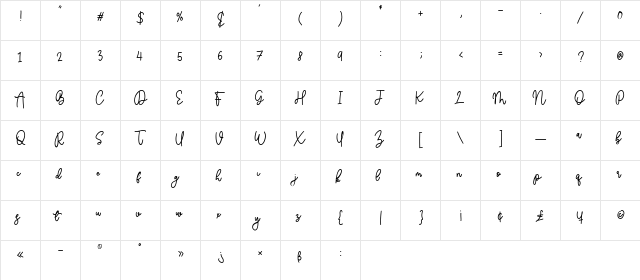
Balmonde Regular
| Designer | Balpirick 2020 |
Design Context for Balmonde Typeface
Balmonde takes a measured approach to typography — its balanced proportions and neutral character make it a reliable workhorse for both digital and print work.
Pro Tip: Use Balmonde in both headline and body roles to test its range before committing to a single application.